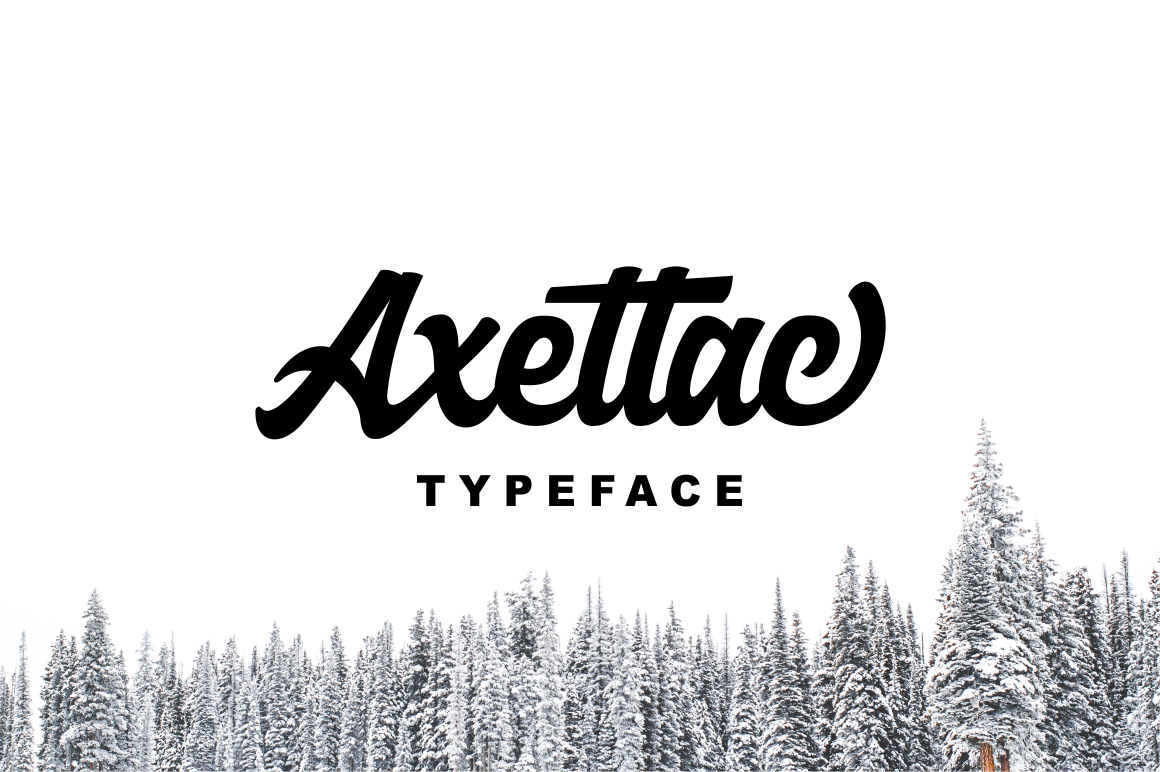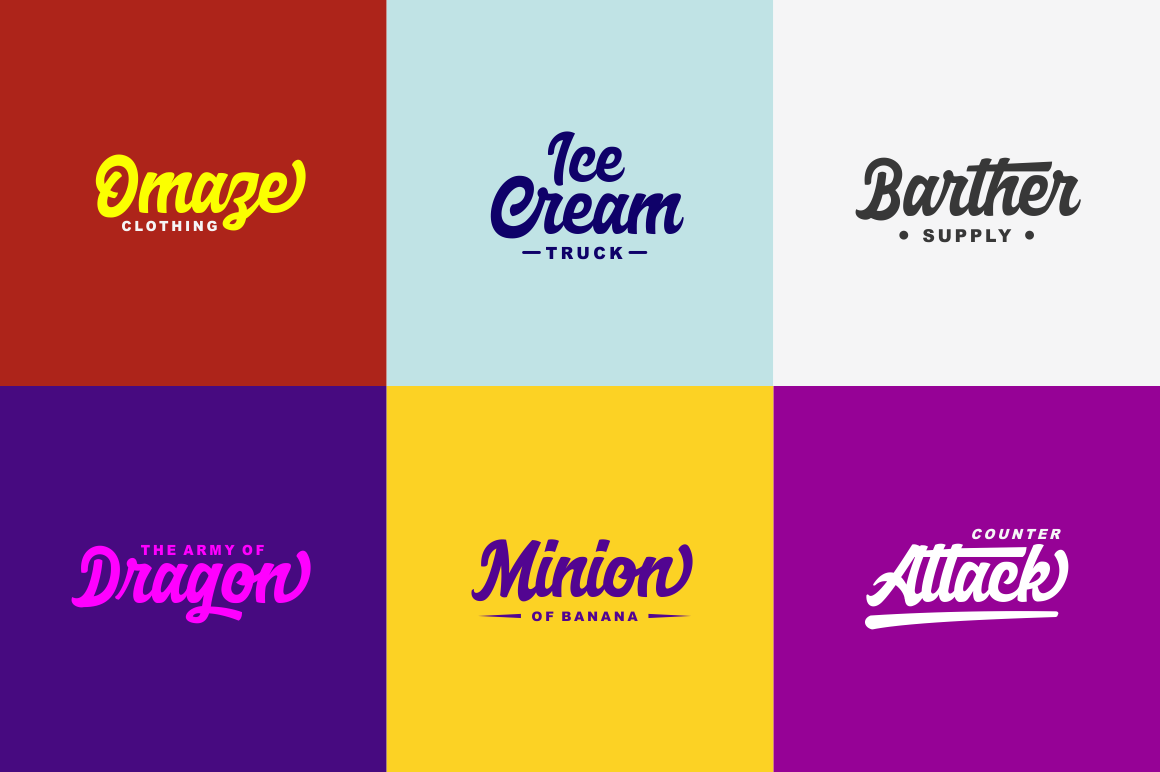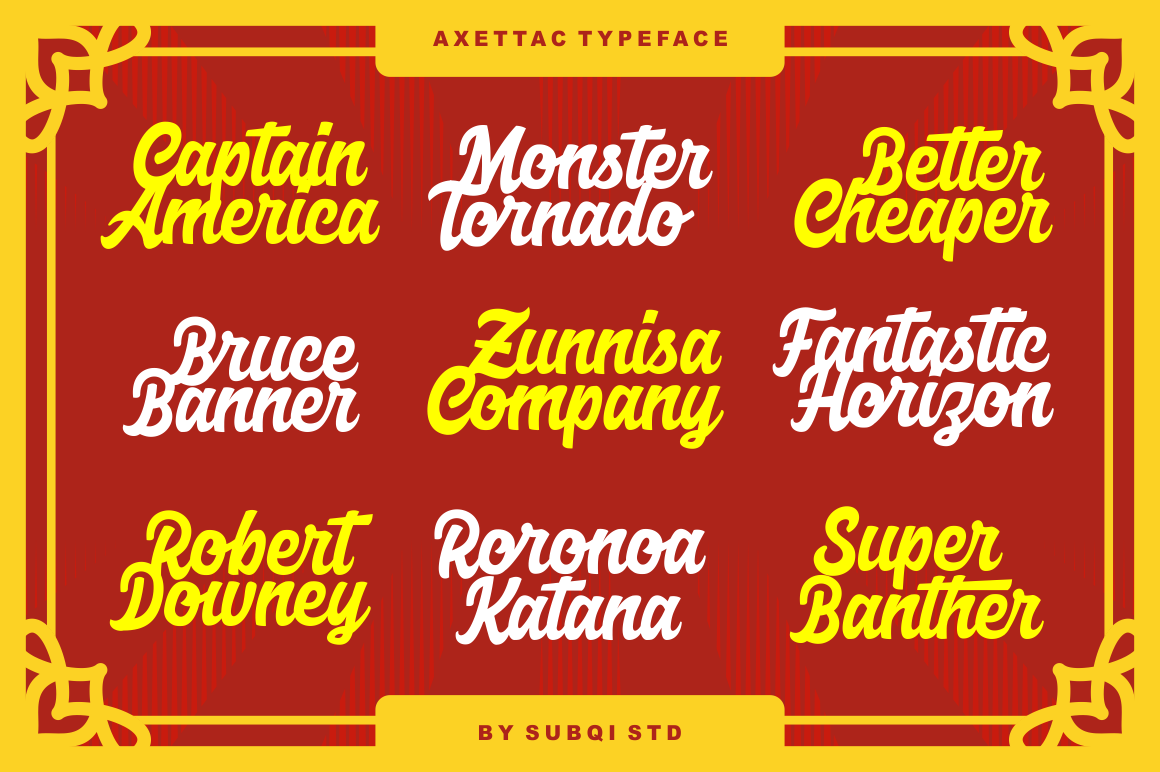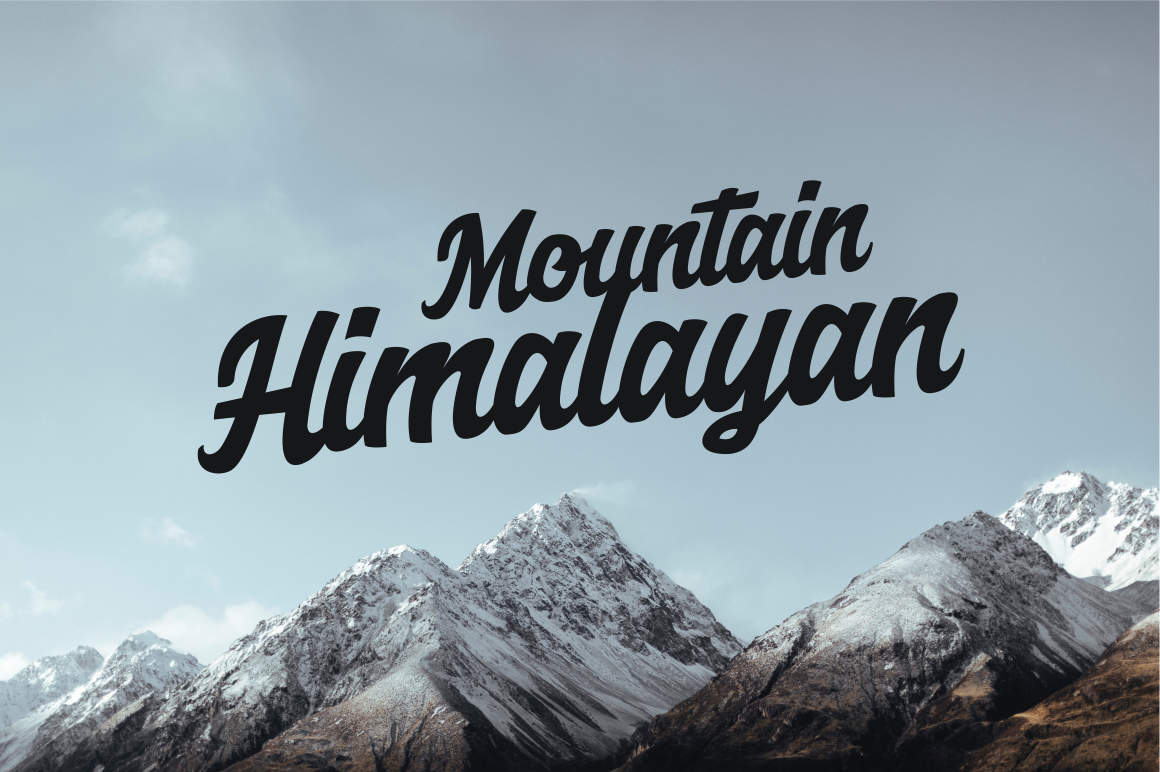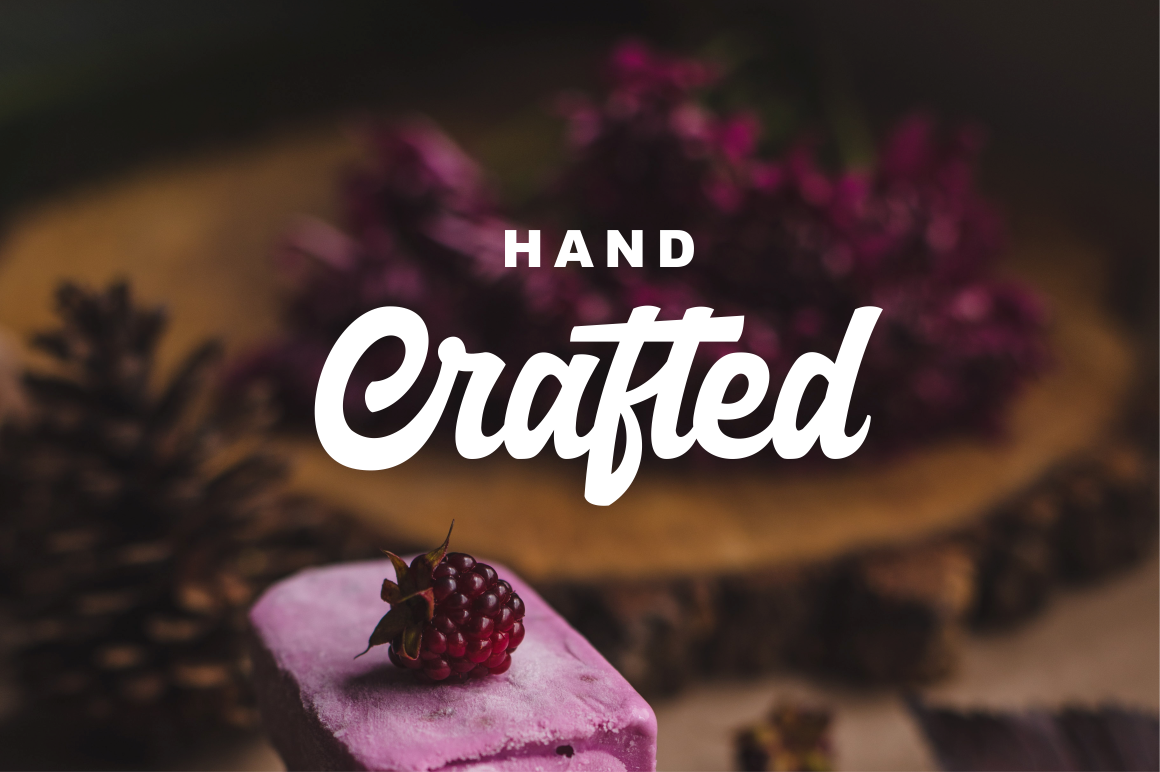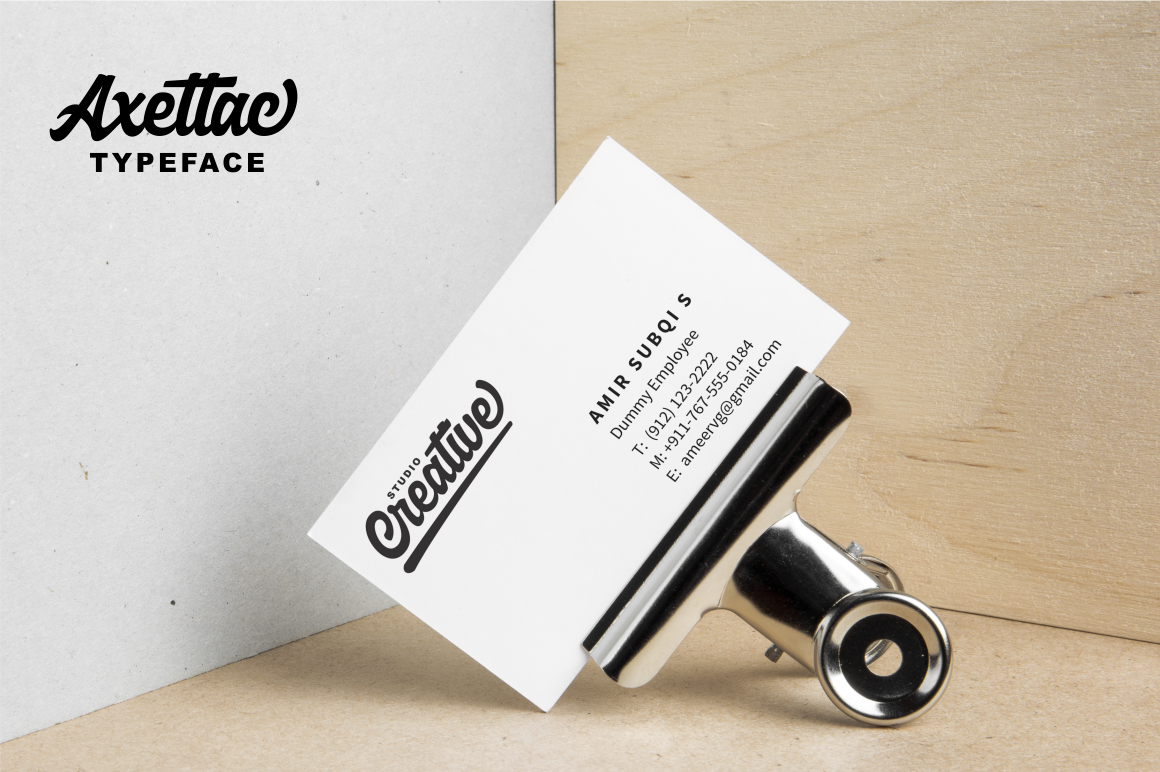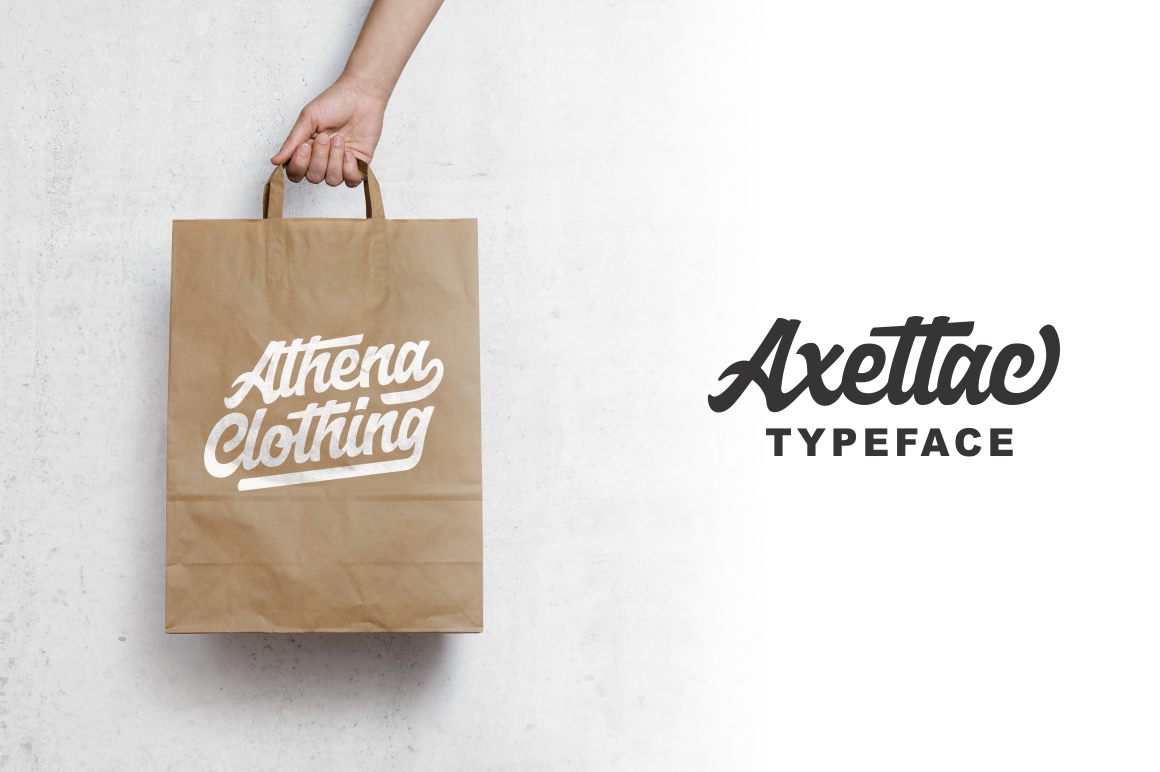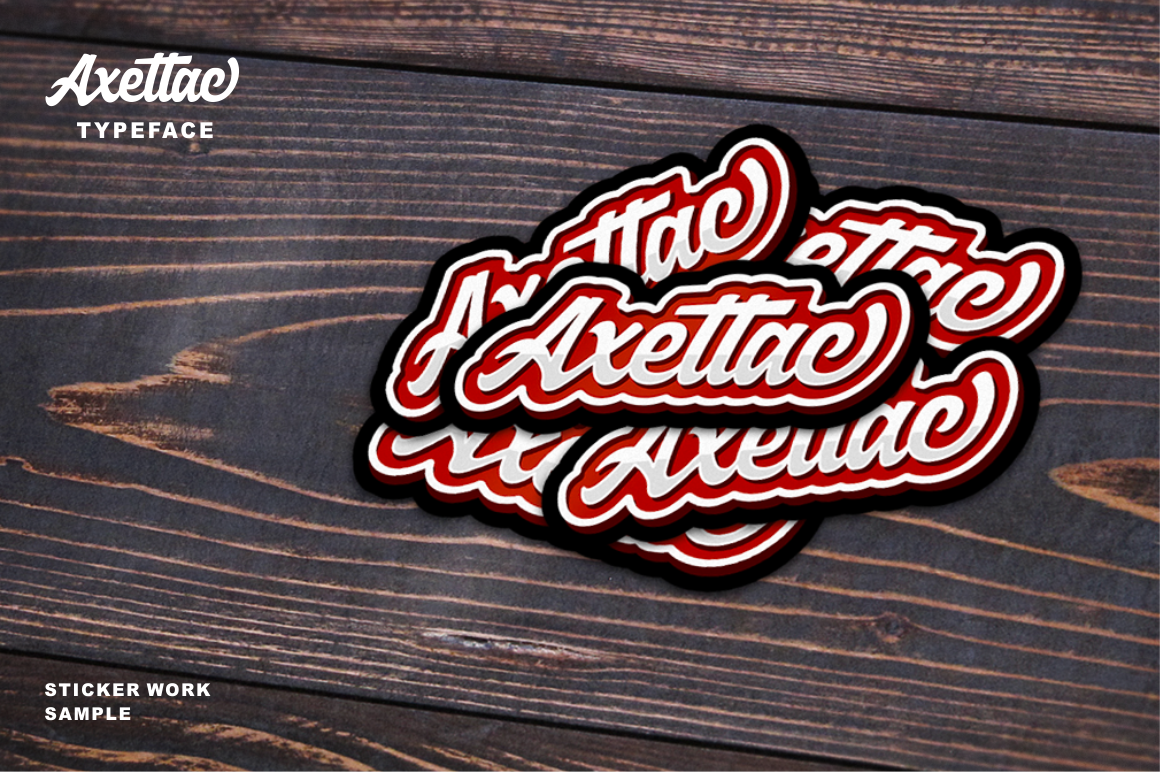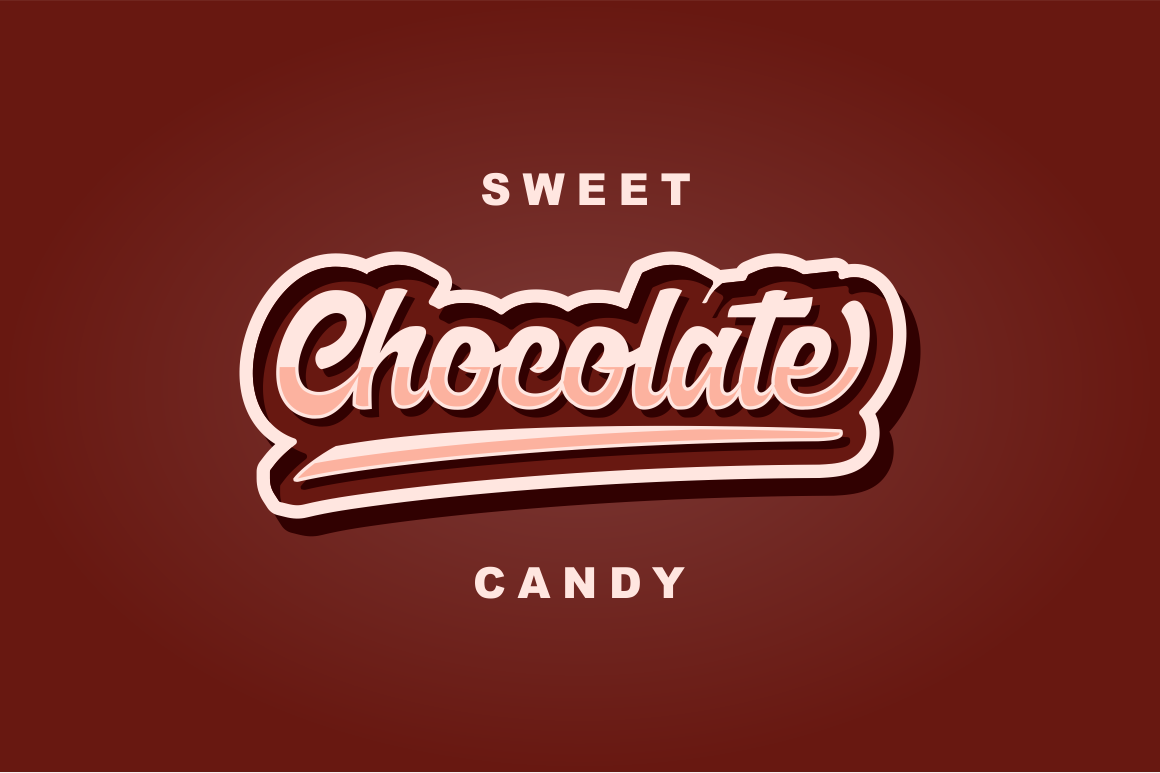
Axettac Font
Axettac is a bold daring script that is perfect for logotypes, apparel, posters and much more.
It features extra swashes and multilingual support.